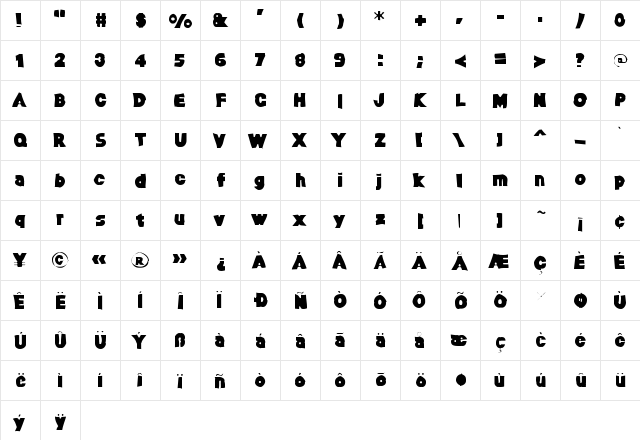
Baltar Gaunt Regular
Design Context for Baltar Gaunt Typeface
Baltar Gaunt is a composed and adaptable typeface that performs quietly and consistently across a wide range of design contexts.